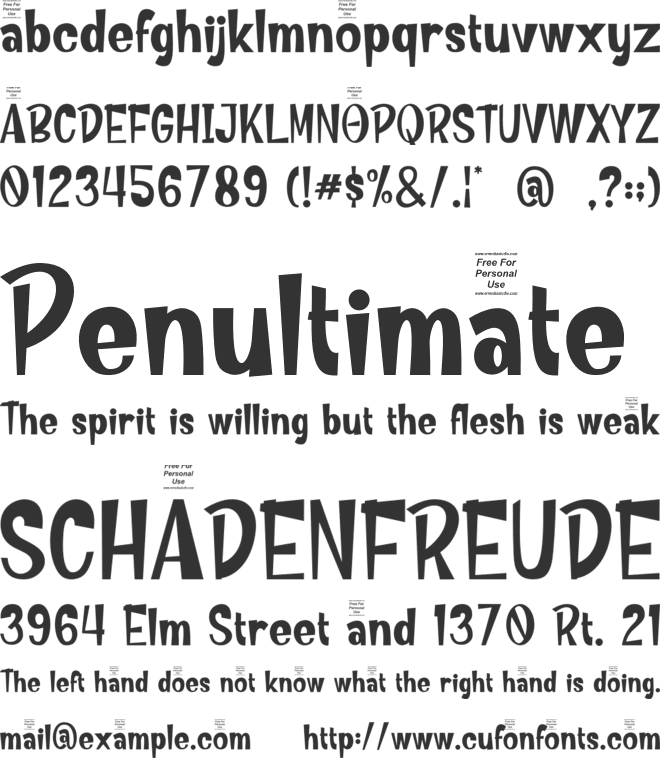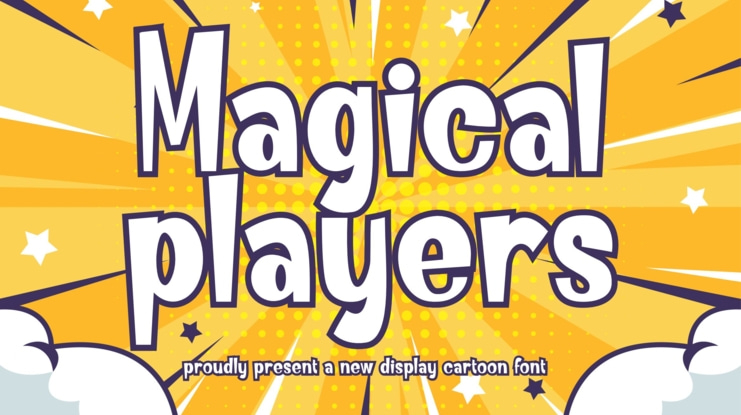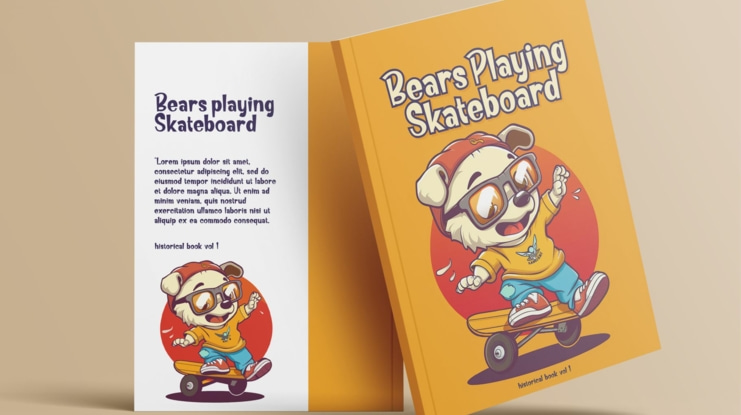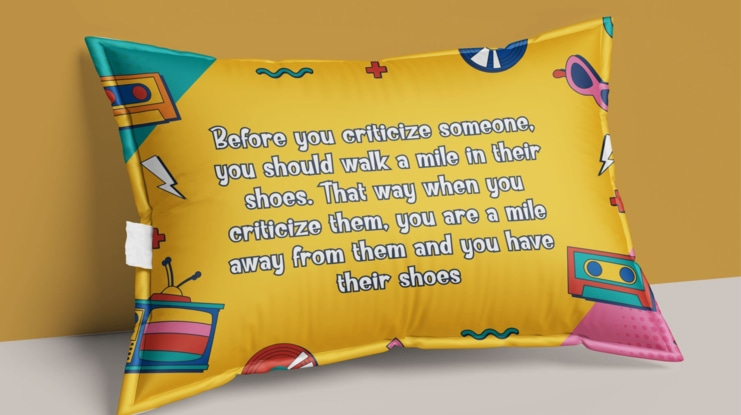
Magical Players Font
Introducing Magical Players Is the new cartoon Display Font is a modern, trendy, bouncy and cute display font. It has a unique character with wood theme. It is perfect to be combined with invitation card designs, company logos, movie titles, movie names, business cards, book titles, brand names and various other designs.
- Uppercase and lowercase
- Numbering and Punctuation